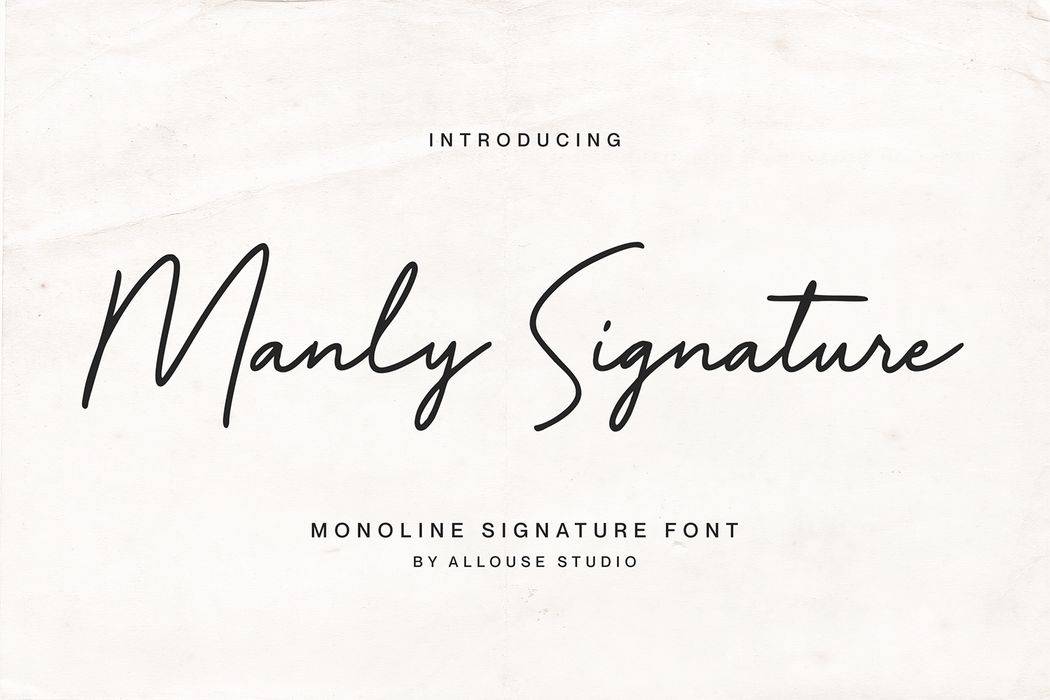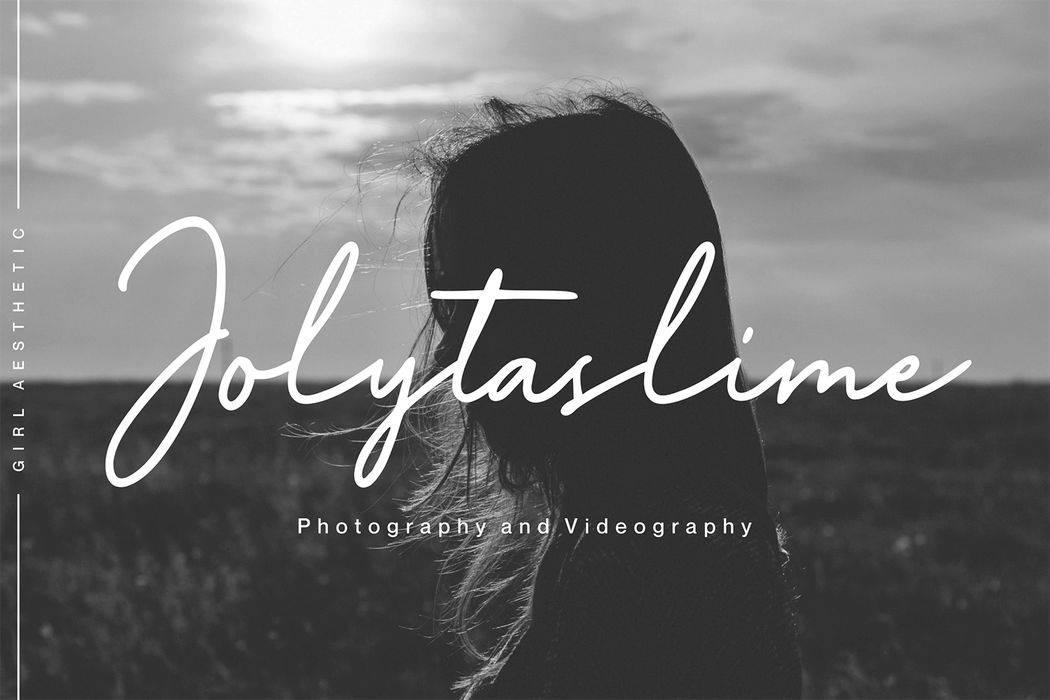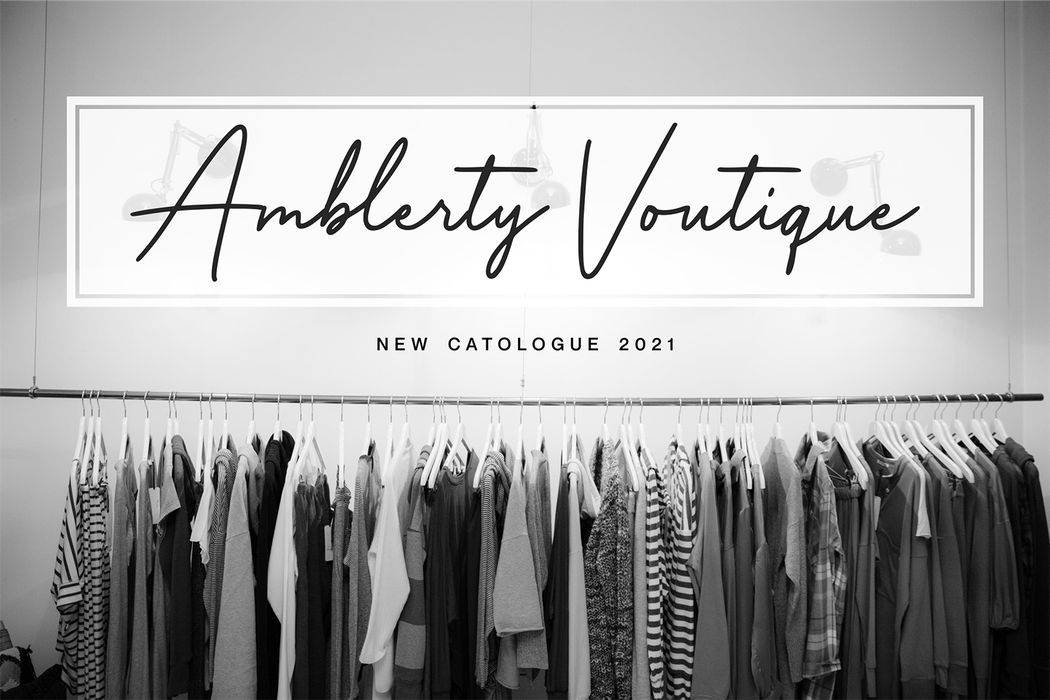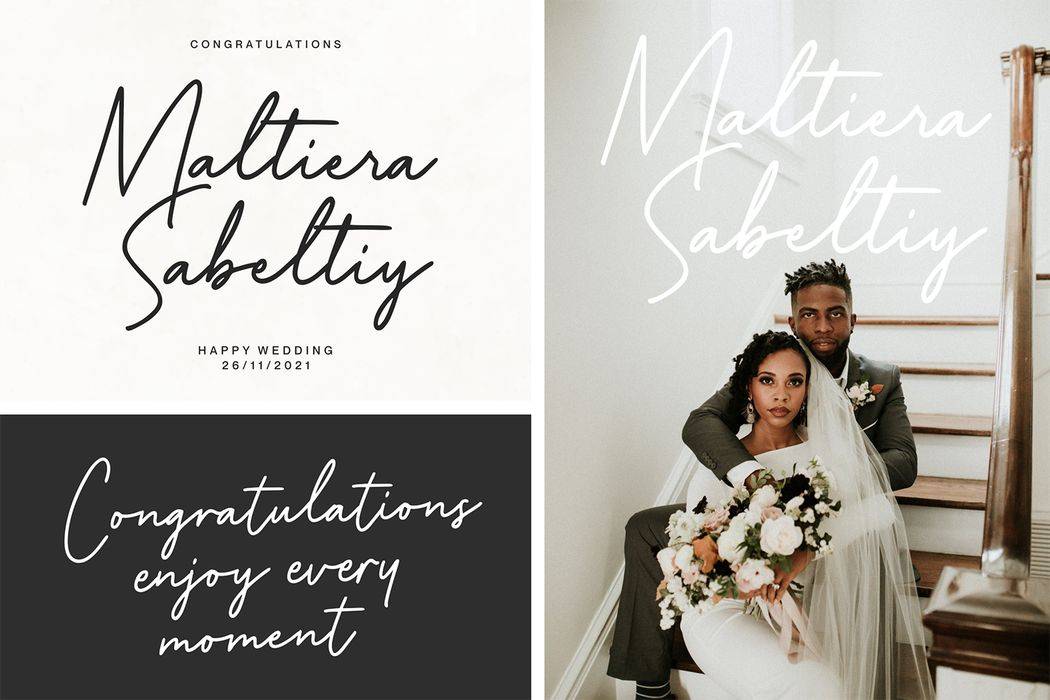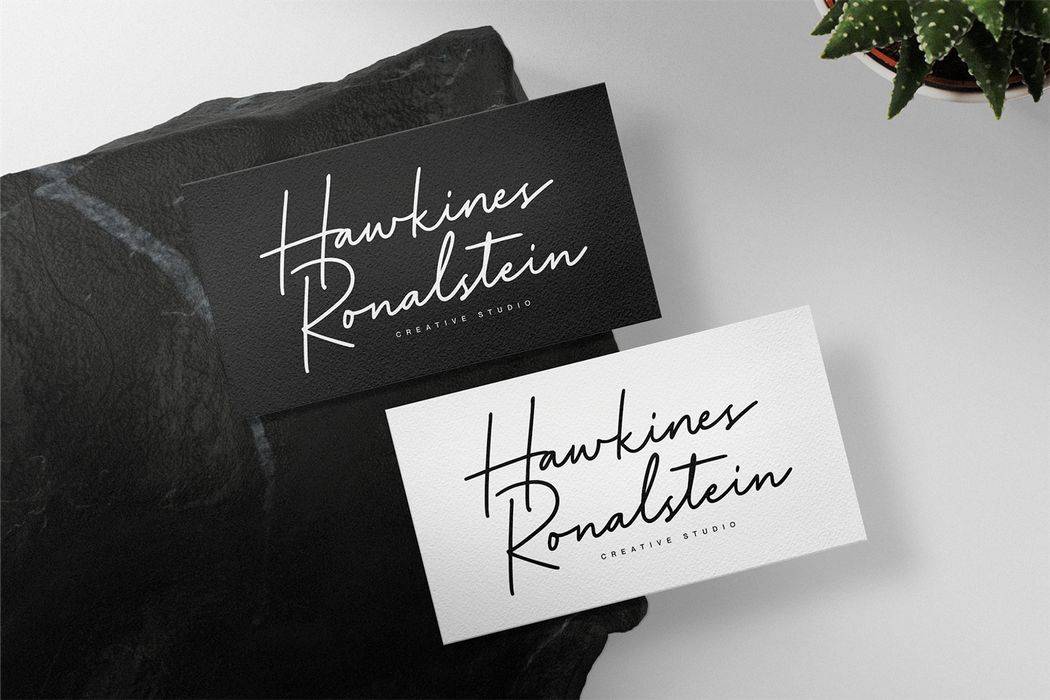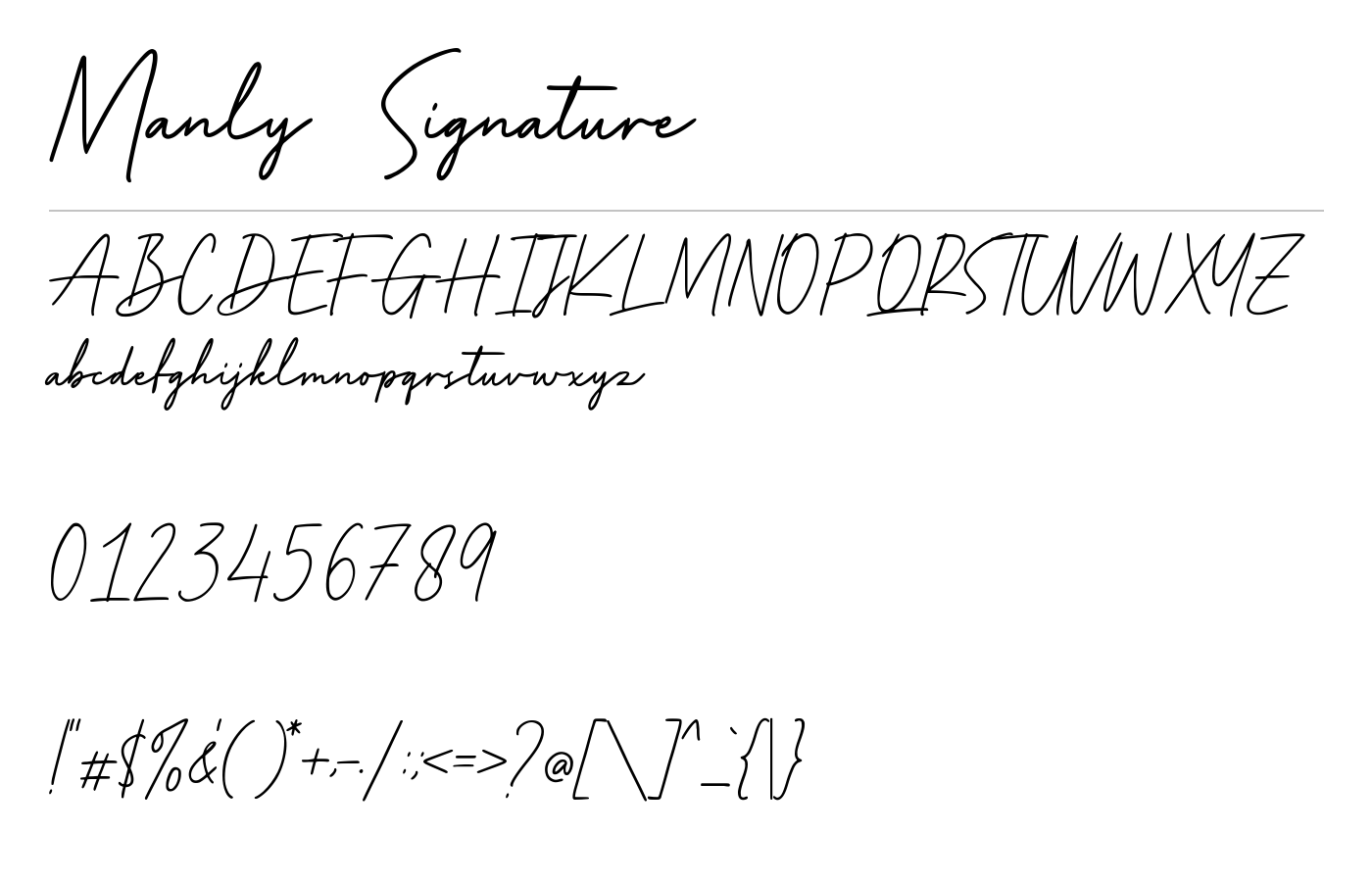
Manly Signature Font is a slender, elegant script font that mimics natural handwriting with a light, flowing stroke and a casual, personal feel. Its tall, narrow letterforms and smooth curves create a refined yet approachable style, ideal for branding, invitations, and signature logos where a touch of sophistication and individuality is desired. This font works beautifully in designs that seek a chic, modern handwritten aesthetic with a relaxed, stylish vibe.
Manly Signature Font
About Manly Signature Font